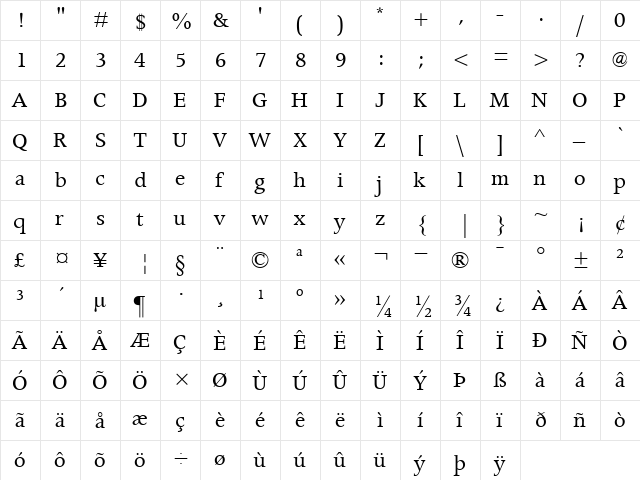
ApolloMT Roman
Design Context for ApolloMT Typeface
ApolloMT offers clean, dependable letterforms without strong stylistic allegiance, making it a practical choice for designers who need flexibility.
Pro Tip: Use ApolloMT in both headline and body roles to test its range before committing to a single application.